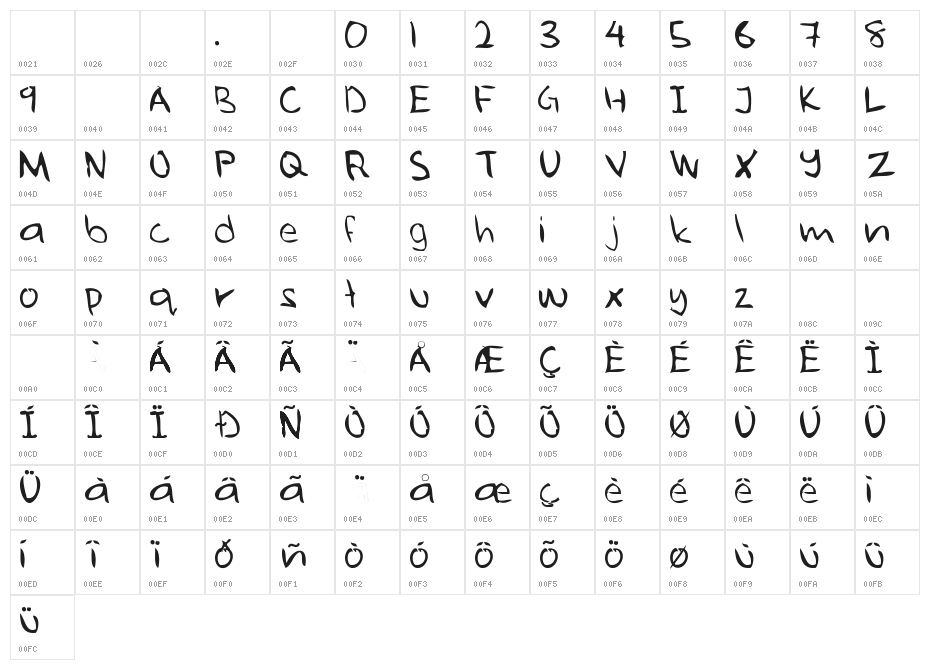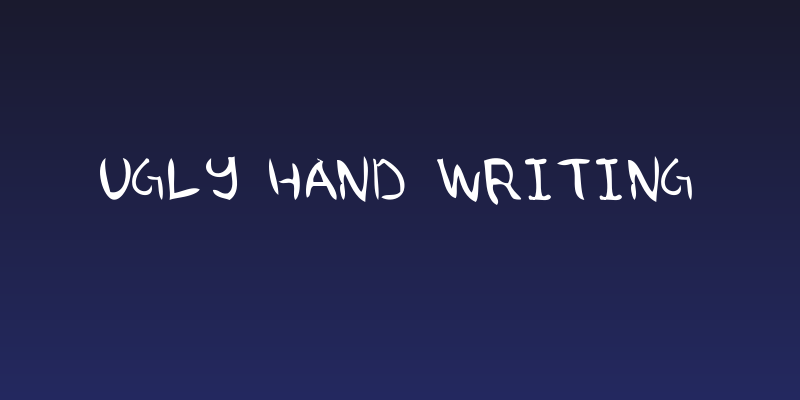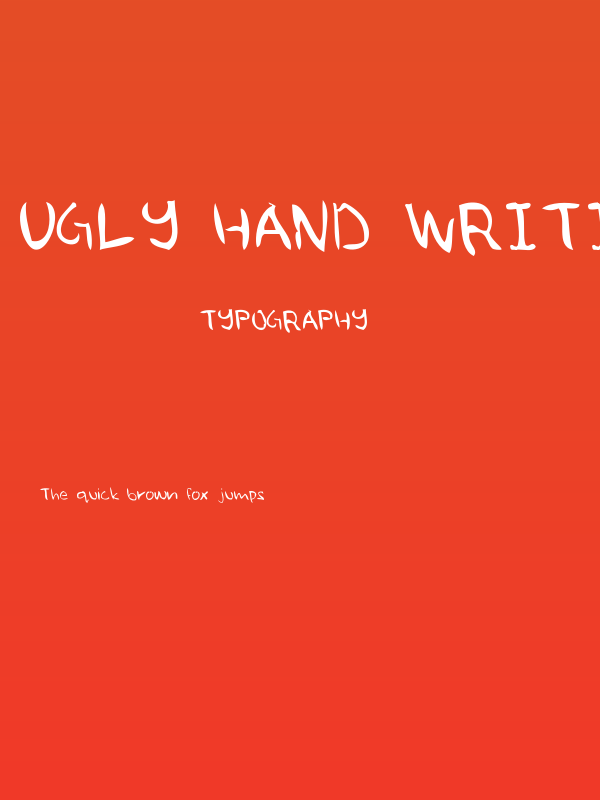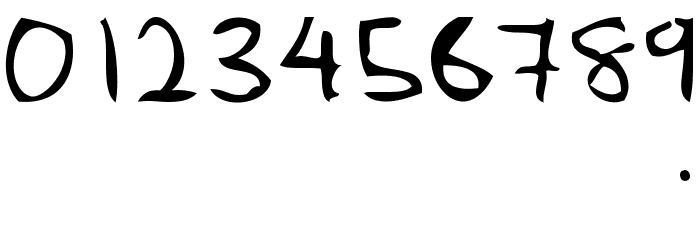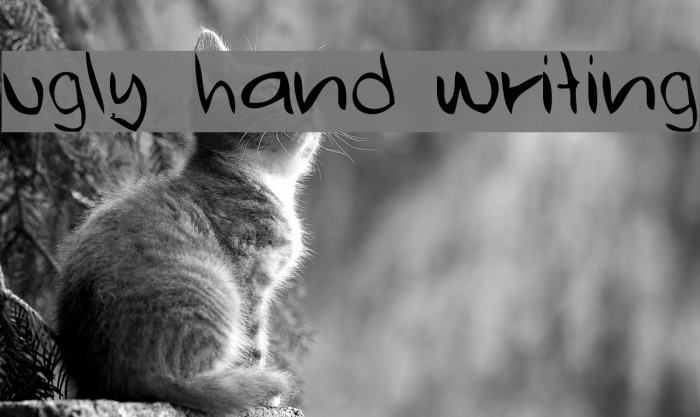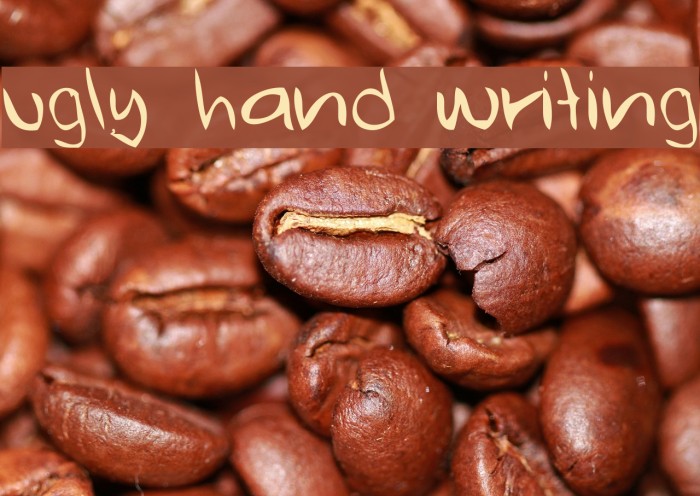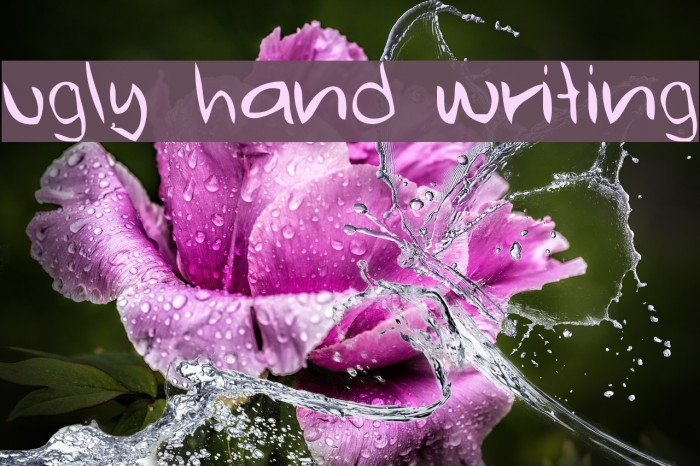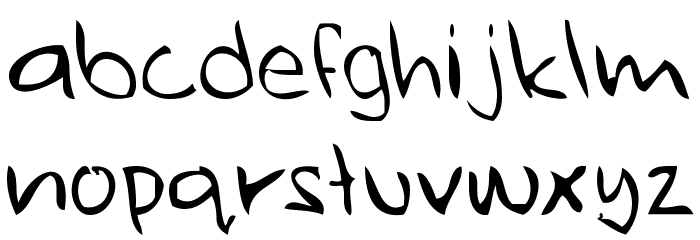
ugly hand writing Font
ugly hand writing Description
This font features a playful and casual handwritten style, characterized by its irregular and uneven strokes that mimic the spontaneity of natural handwriting. The letters have a whimsical and slightly chaotic appearance, with varying heights and widths that add to its charm. The strokes are bold and expressive, giving the font a lively and energetic feel. It captures the essence of informal communication, making it suitable for projects that require a personal touch. The numbers and special characters maintain the same playful style, ensuring consistency across all elements.
| Overall Style | Casual |
| Use Case | Headlines, Informal text, Creative projects |
| Proposed Projects | Ideal for greeting cards, children's books, casual invitations, and personal blogs. |